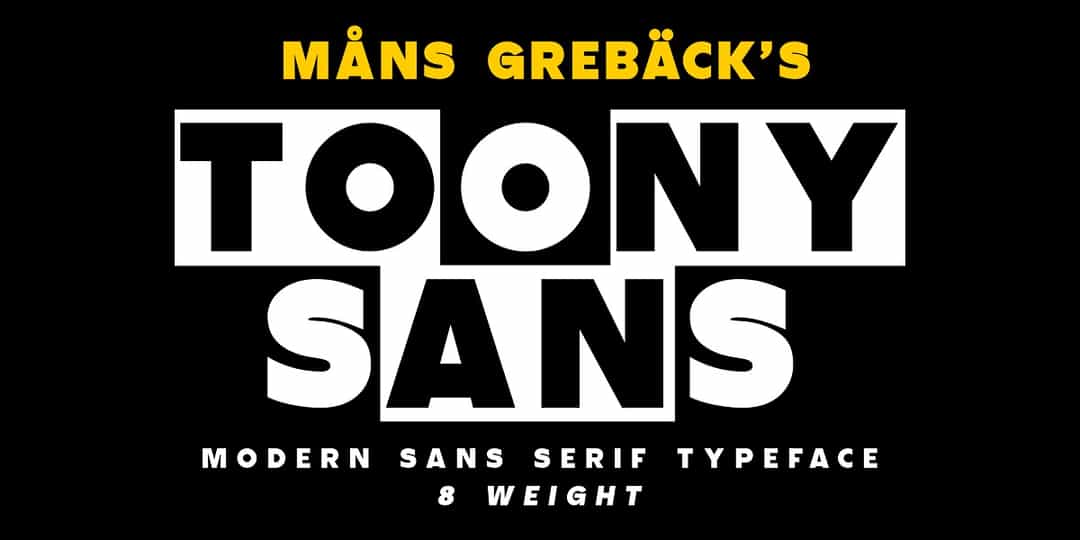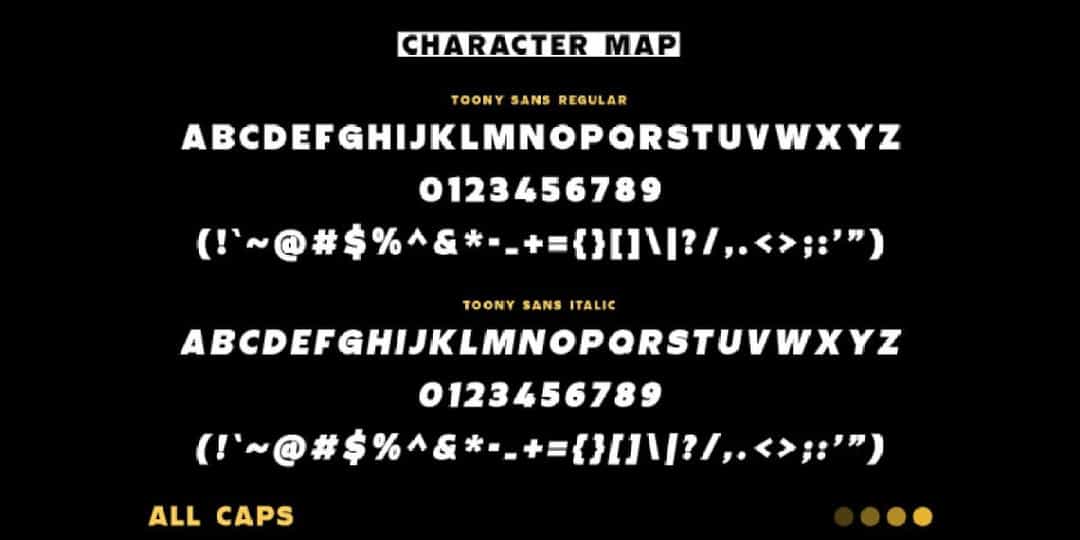
Toony Sans is an updated take on traditional typography. As an homage to beloved animated films, its clean sans-serif style captures professional look with just an ounce of nostalgia. Ideal for projects requiring simplicity and elegance; Toony Sans features smooth edges, sharp lines and precise style for contemporary projects; but there is an unmistakable warmth evident within each character of its style.